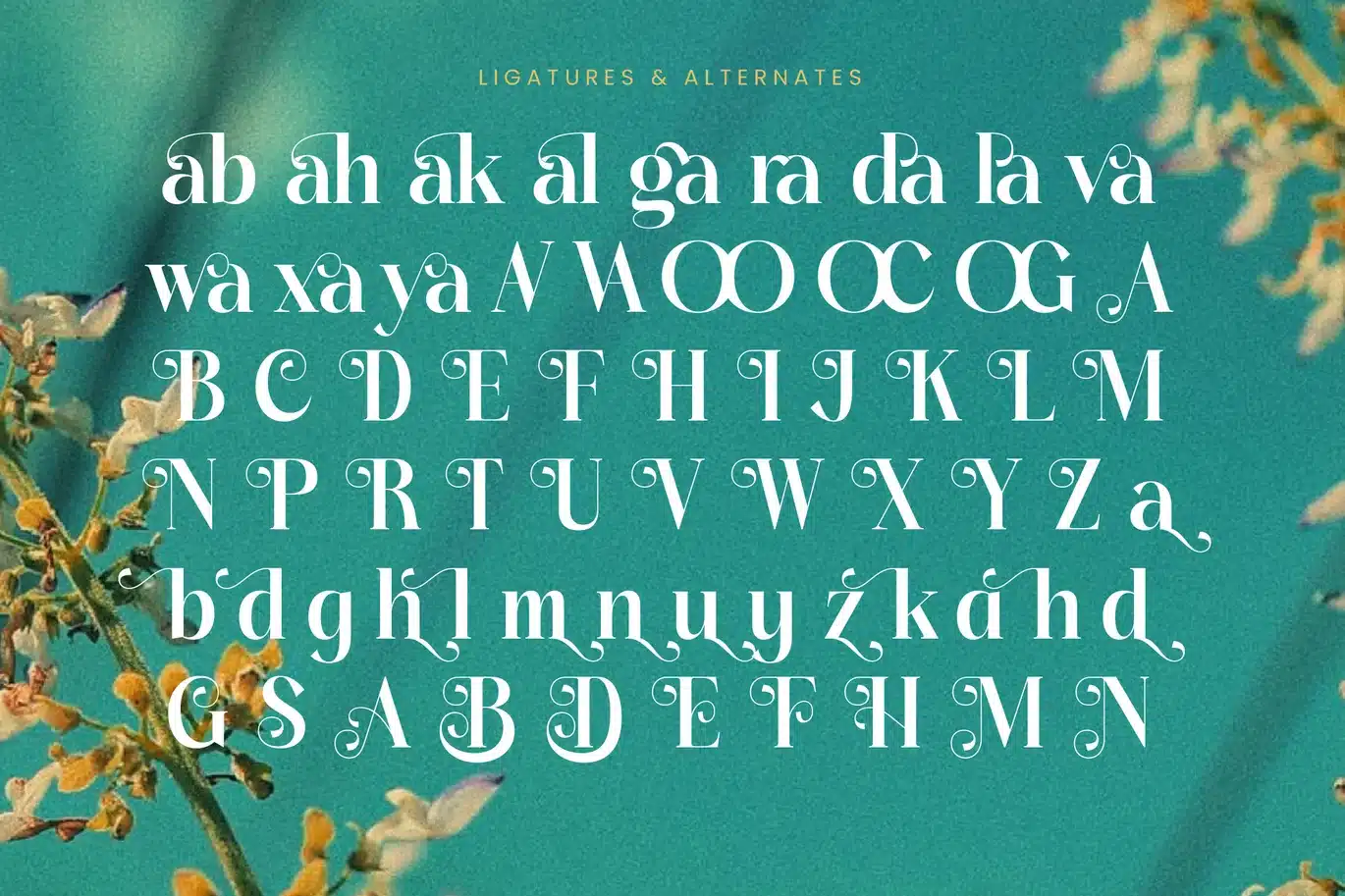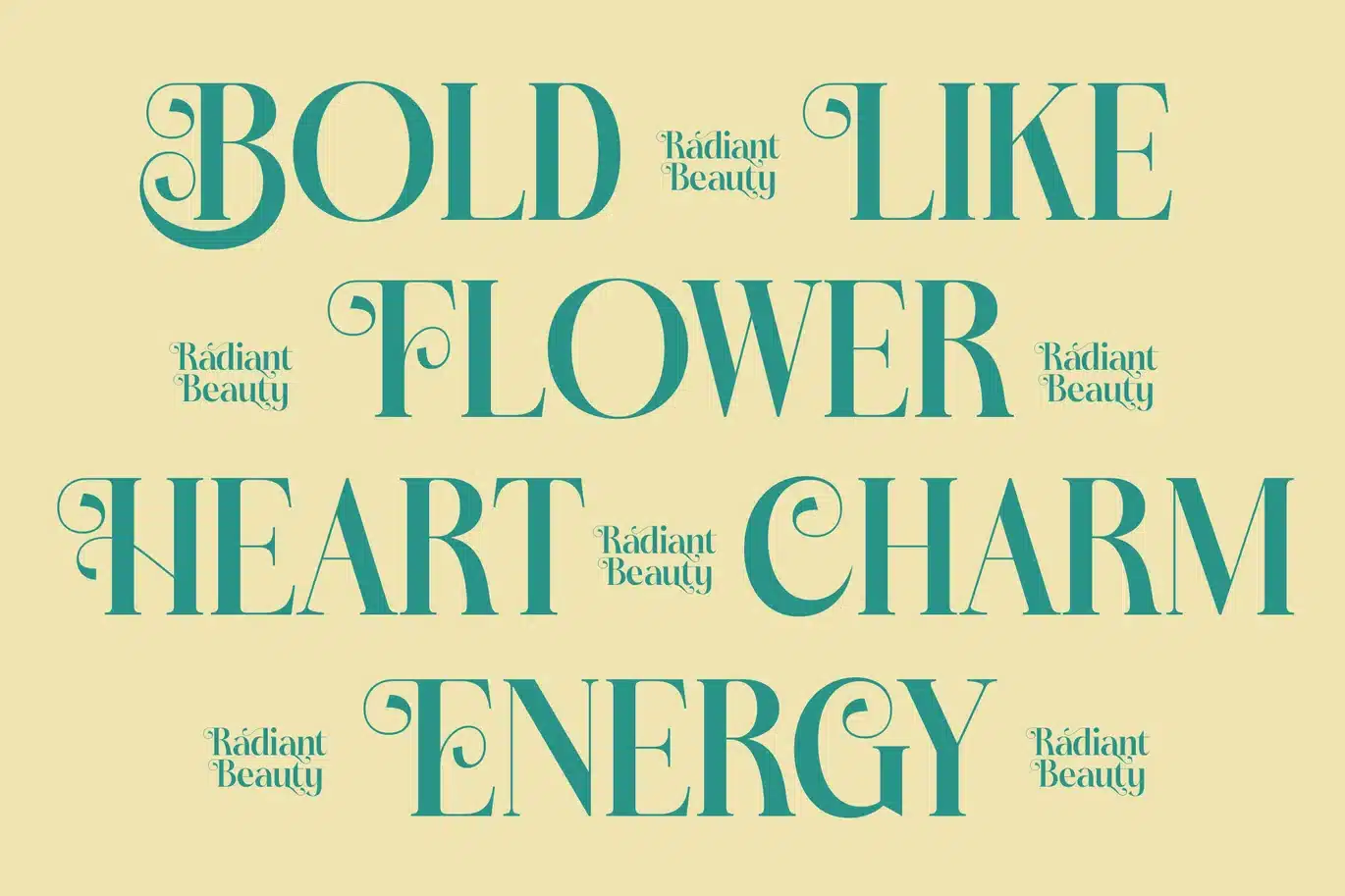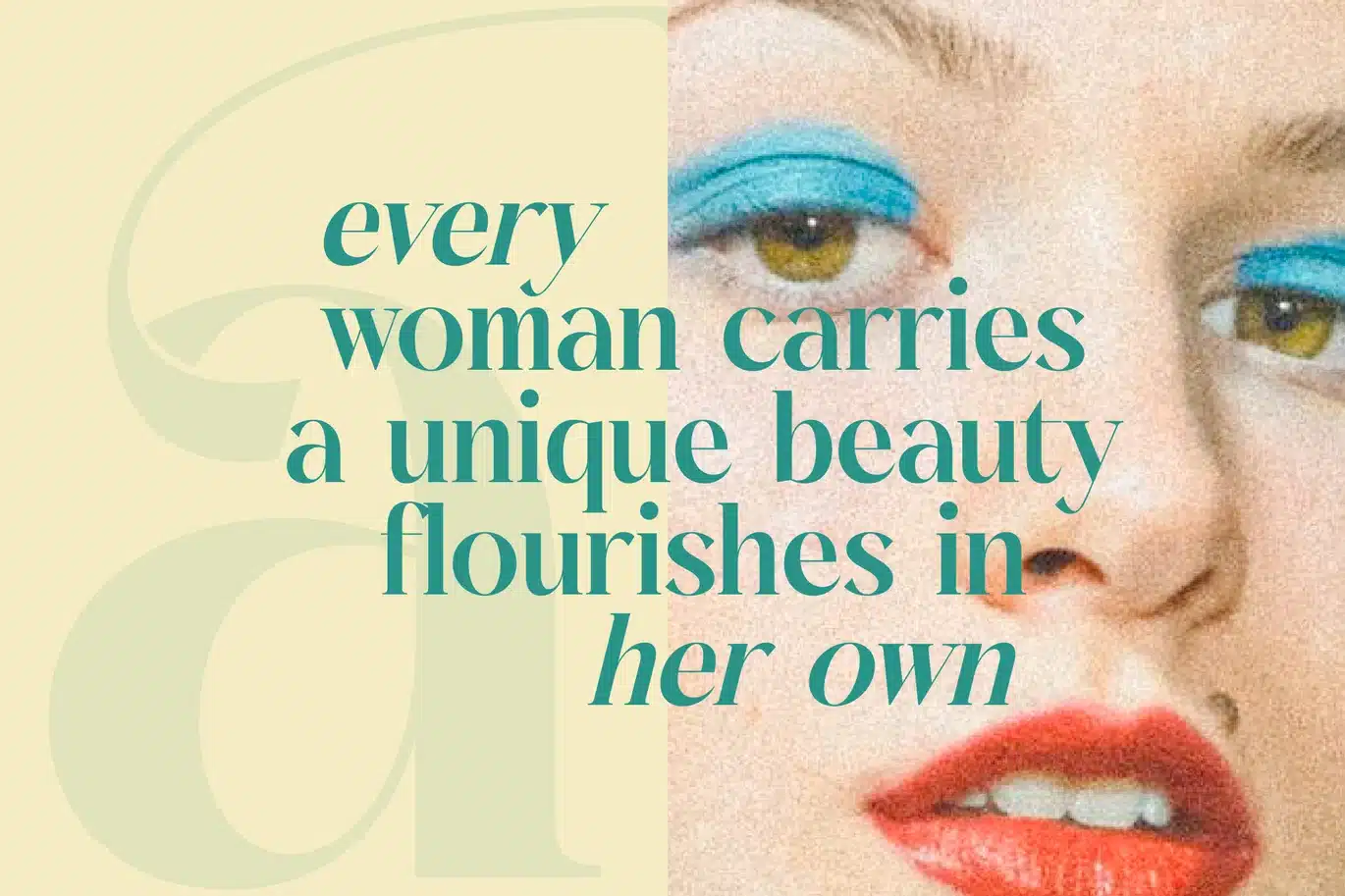
Dudga Baloval – Elegant Serif Font
Dudga Baloval is an elegant serif display font designed with artistic curves and refined details. Featuring 21 ligatures and 47 alternates with a total of 400 glyphs, it brings timeless sophistication to every project. Perfect for logos, editorial layouts, branding, invitations, and luxury packaging, Dudga Baloval combines classic elegance with a modern creative twist — ideal for designers seeking a stylish and graceful typeface.